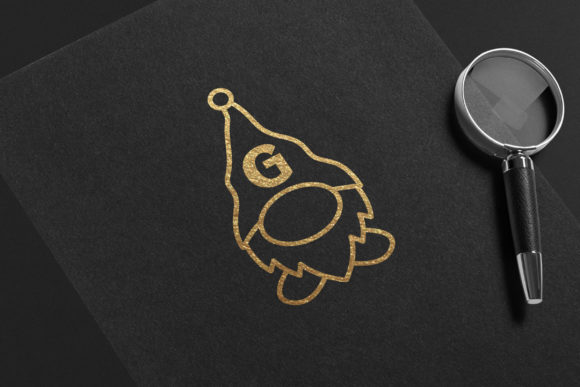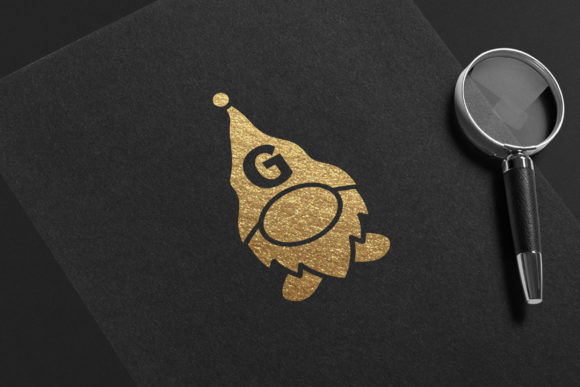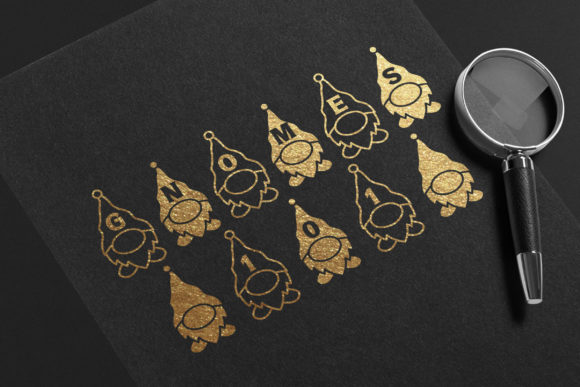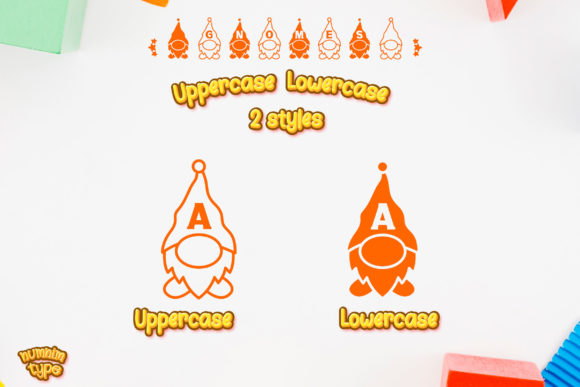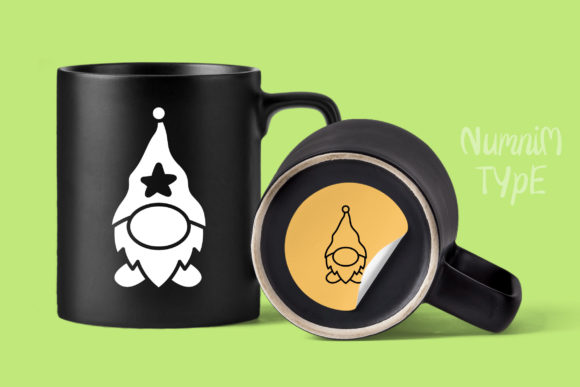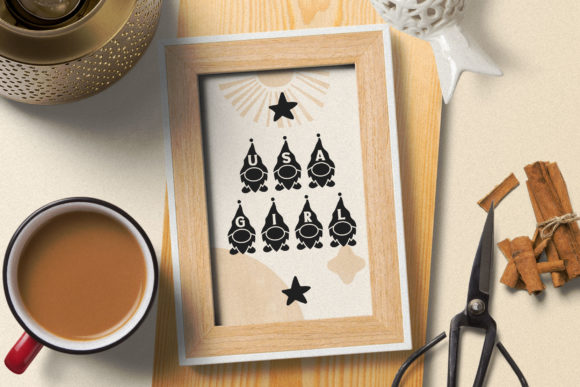
Introducing Christmas Gnomes Font: The Ultimate Holiday Decorative Font
Are you looking for a unique and fun way to add a festive touch to your designs this Christmas season? Look no further than the Christmas Gnomes Font! This cool and uniquely designed decorative font is specifically created for Christmas Day, and its playful characters are perfect for adding a bold accent to your designs.
What Makes Christmas Gnomes Font So Special?
Christmas Gnomes Font is a one-of-a-kind decorative font that captures the whimsical and fun spirit of Christmas. Each character is carefully crafted to bring a sense of playfulness and joy to your designs. The font features a range of fun and quirky characters, including letters, numbers, and punctuation marks, all designed with a festive twist.
Whether you’re a designer, crafter, or DIY enthusiast, Christmas Gnomes Font is the perfect addition to your holiday design toolkit. The font is ideal for creating festive holiday cards, decorations, and gifts, and can be used for a wide range of projects, from paper crafting to digital design.
Key Features of Christmas Gnomes Font
- Unique and playful design: Each character is carefully crafted to bring a sense of fun and whimsy to your designs.
- Festive theme: The font is specifically designed for Christmas Day, making it perfect for holiday-themed projects.
- Decorative style: The font features a decorative style that’s perfect for adding a bold accent to your designs.
Ideas for Using Christmas Gnomes Font
There are countless ways to use Christmas Gnomes Font in your holiday designs. Here are a few ideas to get you started:
- Holiday cards: Use Christmas Gnomes Font to create festive holiday cards for friends and family.
- Decorations: Add a festive touch to your holiday decorations with Christmas Gnomes Font.
- Gifts: Use Christmas Gnomes Font to create personalized gift tags and wrapping paper.
- Digital design: Use Christmas Gnomes Font in your digital designs, such as social media graphics and holiday-themed blog posts.
Tips for Getting the Most Out of Christmas Gnomes Font
Here are a few tips for getting the most out of Christmas Gnomes Font:
- Experiment with different colors: Try pairing Christmas Gnomes Font with different colors to create a unique and festive look.
- Mix and match with other fonts: Combine Christmas Gnomes Font with other fonts to create a unique and eye-catching design.
- Use it sparingly: Use Christmas Gnomes Font sparingly to add a bold accent to your designs.
Christmas Gnomes Font is a fun and uniquely designed decorative font that’s perfect for adding a festive touch to your holiday designs. With its playful characters and decorative style, it’s the perfect addition to your holiday design toolkit. Whether you’re a designer, crafter, or DIY enthusiast, Christmas Gnomes Font is sure to bring a sense of joy and whimsy to your holiday projects.